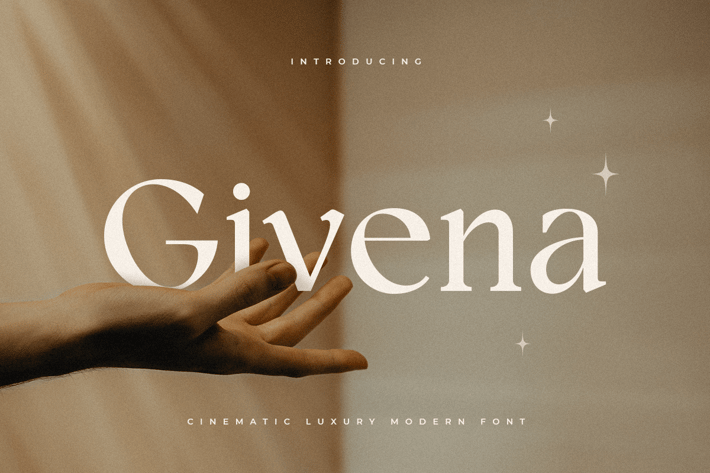
Givena - Cinematic Luxury Modern Font
Givena, a Cinematic Luxury Modern Font is a Modern Display font for Luxury, Elegant, and Cinematic Logo and Branding needs, with Cool style touch, font that you can combine to get any variations and unique shapes easily just in seconds with choose alternates of them. It is a serif display font with moderate contrast that perfect for branding projects, logo, wedding designs, social media posts, advertisements, product packaging, product designs, label, photography, watermark, invitation, stationery, and any projects, it makes with a high level of legibility.